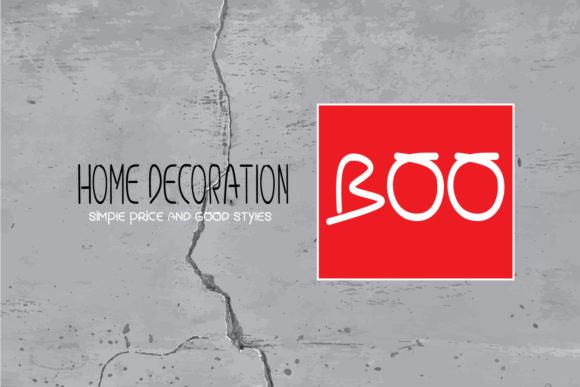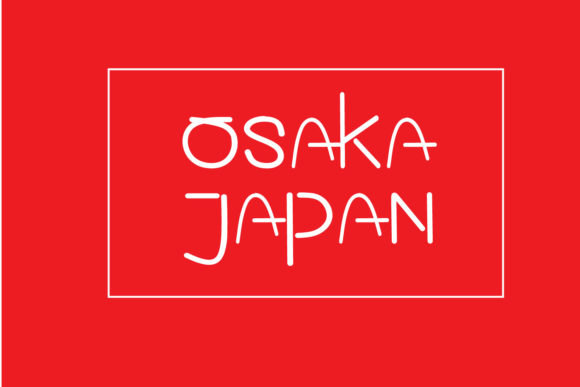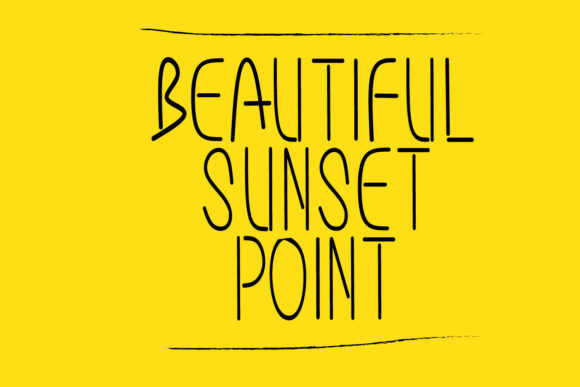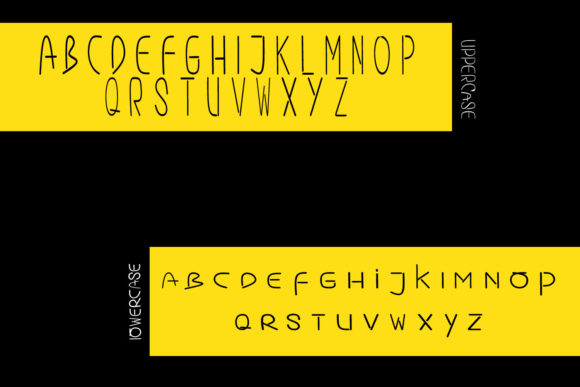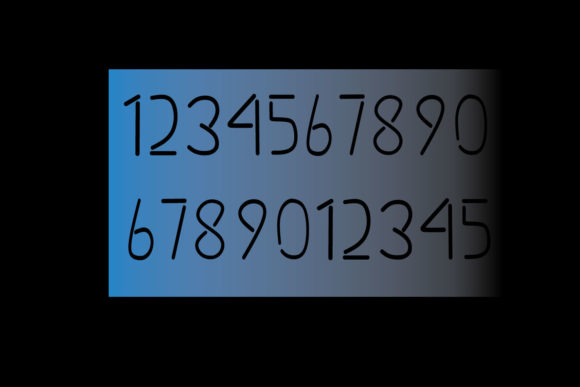
Discover the Charm of Alfa Alfa Font: A Simple yet Trendy Handwritten Font
In the world of typography, fonts play a crucial role in making or breaking a design. A well-chosen font can elevate your project, making it more engaging, readable, and visually appealing. If you’re a designer or crafter looking for a font that embodies simplicity, adaptability, and trendiness, look no further than the Alfa Alfa Font. In this article, we’ll delve into the characteristics, benefits, and uses of the Alfa Alfa Font, exploring why it’s become a popular choice among designers and crafters.
What is Alfa Alfa Font?
Alfa Alfa Font is a simple and thin lettered handwritten font that exudes elegance and sophistication. Its clean lines, minimal ornamentation, and flowing script make it an excellent choice for a wide range of design projects. Whether you’re working on a logo, branding materials, social media graphics, or craft projects, Alfa Alfa Font is sure to make your designs look lovely.
Key Characteristics of Alfa Alfa Font
• Simple and Thin Lettering: Alfa Alfa Font features delicate, thin lines that give it a light and airy feel. This simplicity makes it highly readable, even at smaller font sizes.
• Handwritten Style: The font’s handwritten style adds a touch of warmth and personality to your designs. It’s perfect for creating a friendly, approachable tone that resonates with your audience.
• Adaptable: Alfa Alfa Font is incredibly versatile, making it suitable for various design projects, from digital graphics to print materials.
• Readable: The font’s clear and legible design ensures that your text is easy to read, even for those with visual impairments.
• Trendy: Alfa Alfa Font boasts a modern aesthetic that’s perfect for designers and crafters who want to stay on top of the latest design trends.
Benefits of Using Alfa Alfa Font
So, why should you choose Alfa Alfa Font for your design projects? Here are just a few benefits:
• Elegance and Sophistication: Alfa Alfa Font adds a touch of elegance and sophistication to your designs, making them perfect for high-end branding, luxury products, or special occasions.
• Flexibility: The font’s adaptability means you can use it for a wide range of projects, from digital graphics to print materials, without worrying about it looking out of place.
• Emotional Connection: The handwritten style of Alfa Alfa Font helps create an emotional connection with your audience, making your designs more relatable and engaging.
• Time-Saving: With Alfa Alfa Font, you can create stunning designs quickly and efficiently, saving you time and effort in the design process.
Uses of Alfa Alfa Font
Alfa Alfa Font is an incredibly versatile font that can be used in various design projects, including:
• Logo Design: Create a stunning logo that showcases your brand’s personality and style.
• Branding Materials: Use Alfa Alfa Font to create business cards, letterheads, and other branding materials that exude elegance and sophistication.
• Social Media Graphics: Add a touch of style to your social media graphics, including Facebook posts, Instagram stories, and Twitter headers.
• Craft Projects: Use Alfa Alfa Font to add a personal touch to your craft projects, such as handmade cards, gift tags, and scrapbooking.
In conclusion, Alfa Alfa Font is a simple yet trendy handwritten font that’s perfect for designers and crafters looking to elevate their designs. Its adaptability, readability, and elegance make it an excellent choice for a wide range of projects. Whether you’re working on a logo, branding materials, social media graphics, or craft projects, Alfa Alfa Font is sure to make your designs look lovely. So, why not give it a try and experience the charm of Alfa Alfa Font for yourself?